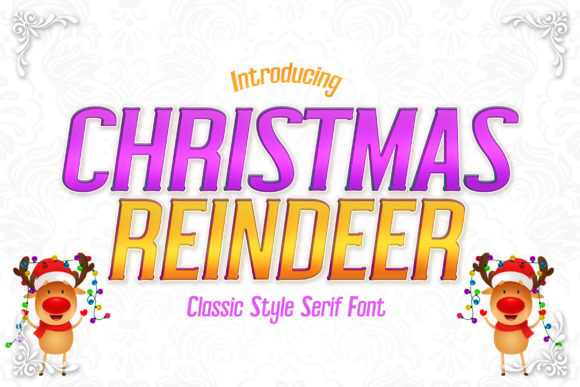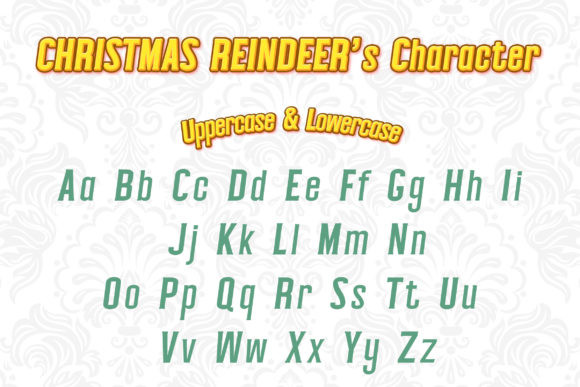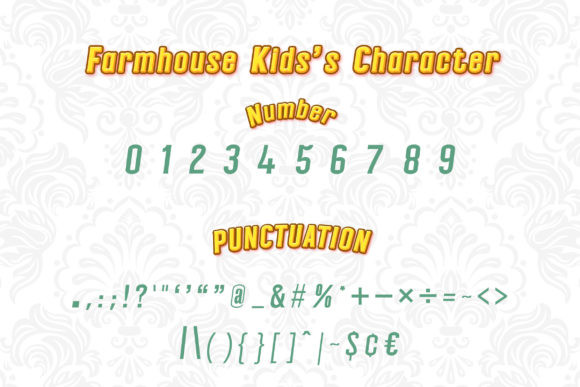
Christmas Reindeer Font
Christmas Reindeer is a tall and thick lettered serif font.Get creative with its authentic style and use it to create fun and trendy designs!